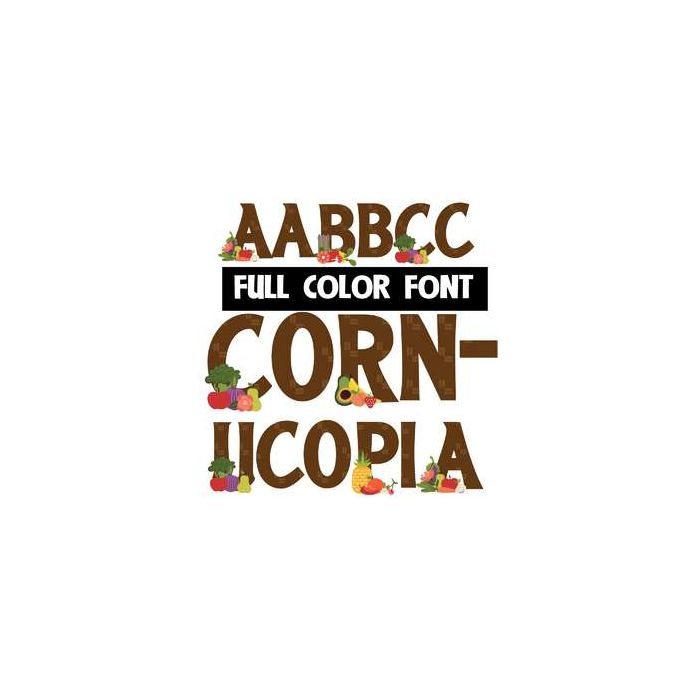
This full-color font features basket-type lettering with a vegetable and fruit array on the uppercase. . This font works best for titles, displays, posters and more. Please note color fonts will show as black in non compatible programs. This font type is compatible with Silhouette Studio.